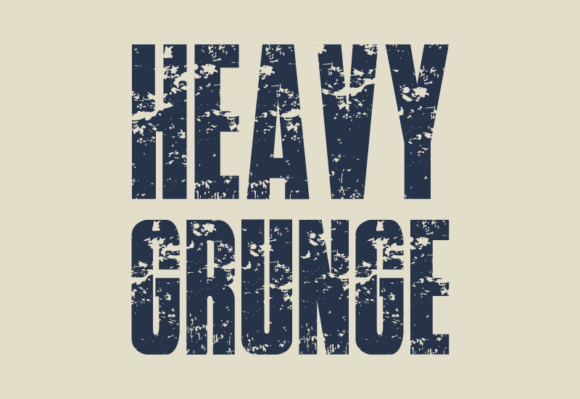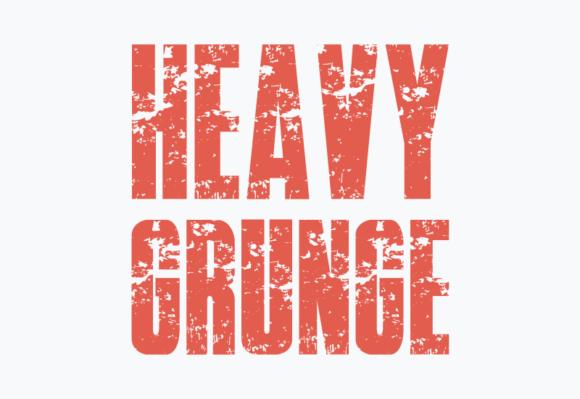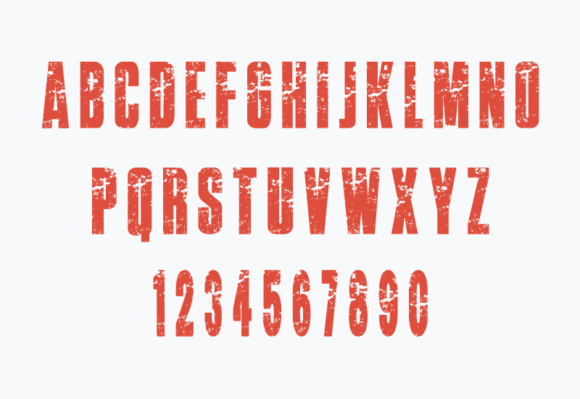
Heavy Grunge Font
About the Heavy Grunge Font
The Heavy Grunge Font is here to transform your projects with its distinctive character and style. Unleash the power of distinctiveness with our ‘Heavy Grunge’ sans-serif font. Renowned for its edgy yet unique design, Heavy Grunge is more than just a typeface. Each of its raw, rough lines is layered with a distressed texture, nurturing an aura of grit and dissent. With its unapologetic boldness and individualistic spirit, Heavy Grunge delivers the perfect textural complement for projects that thrive in audacity. From disruptive poster graphics and audacious album covers to distinctive streetwear branding, Heavy Grunge is crafted to embody the essence of non-conformity. Allow Heavy Grunge to enhance your design aesthetics and shout out your messaging with profound impact.
Heavy Grunge Font Example